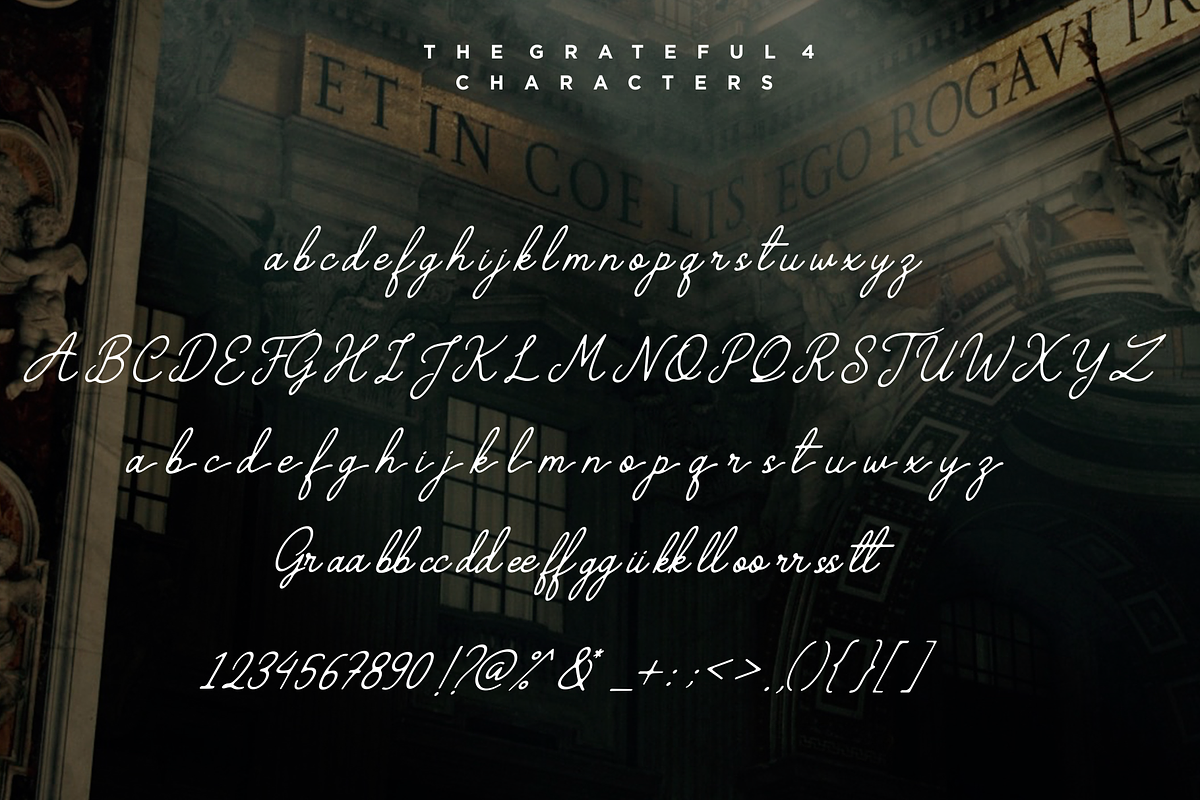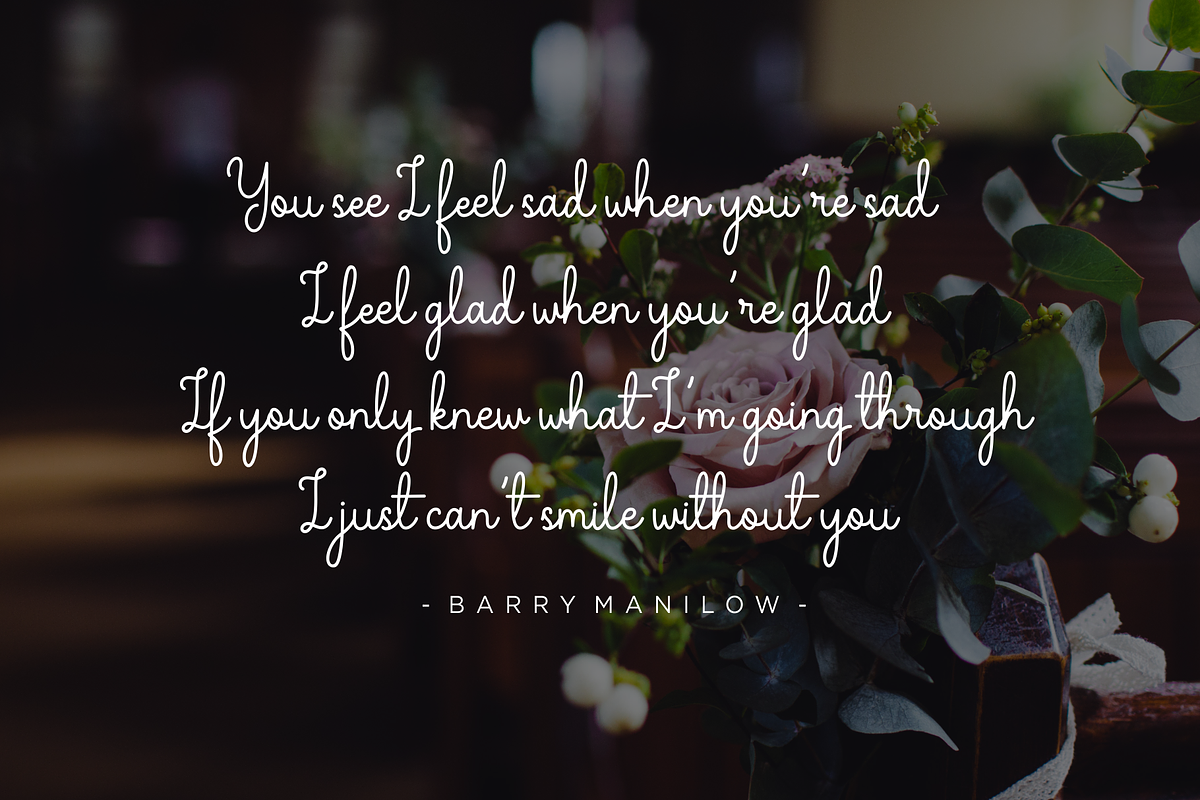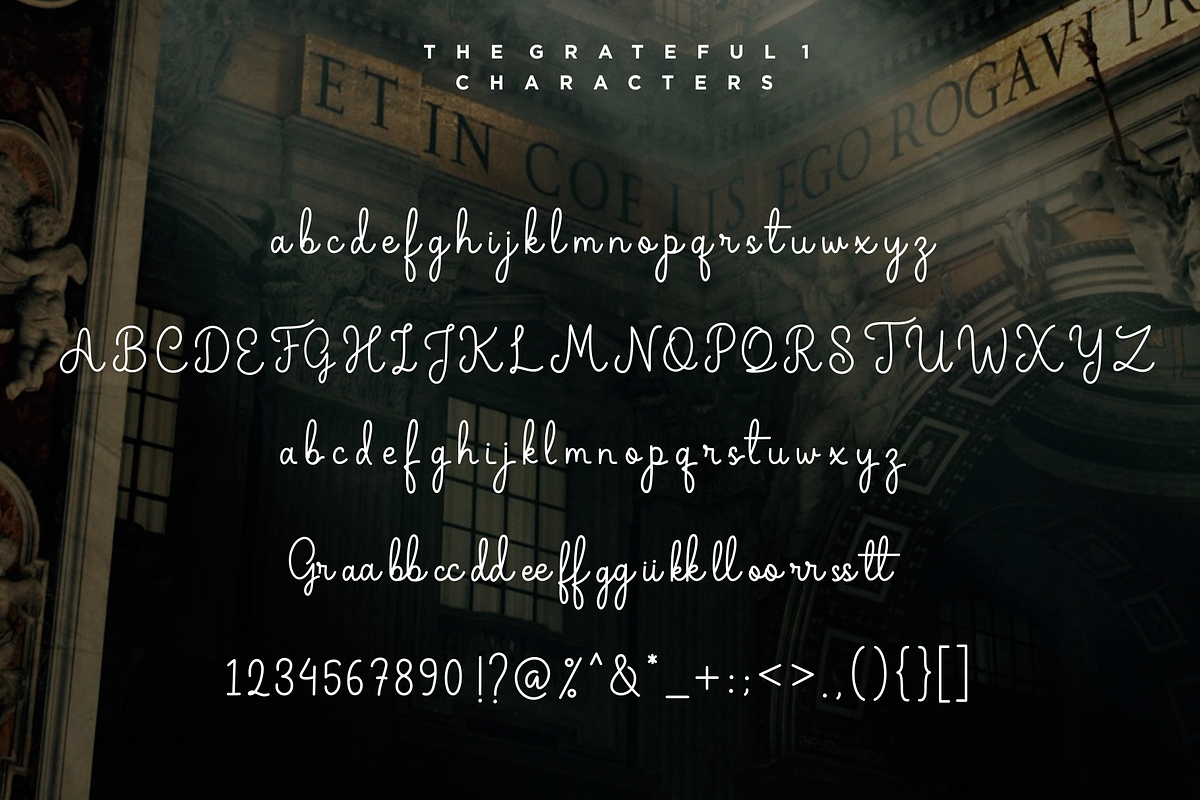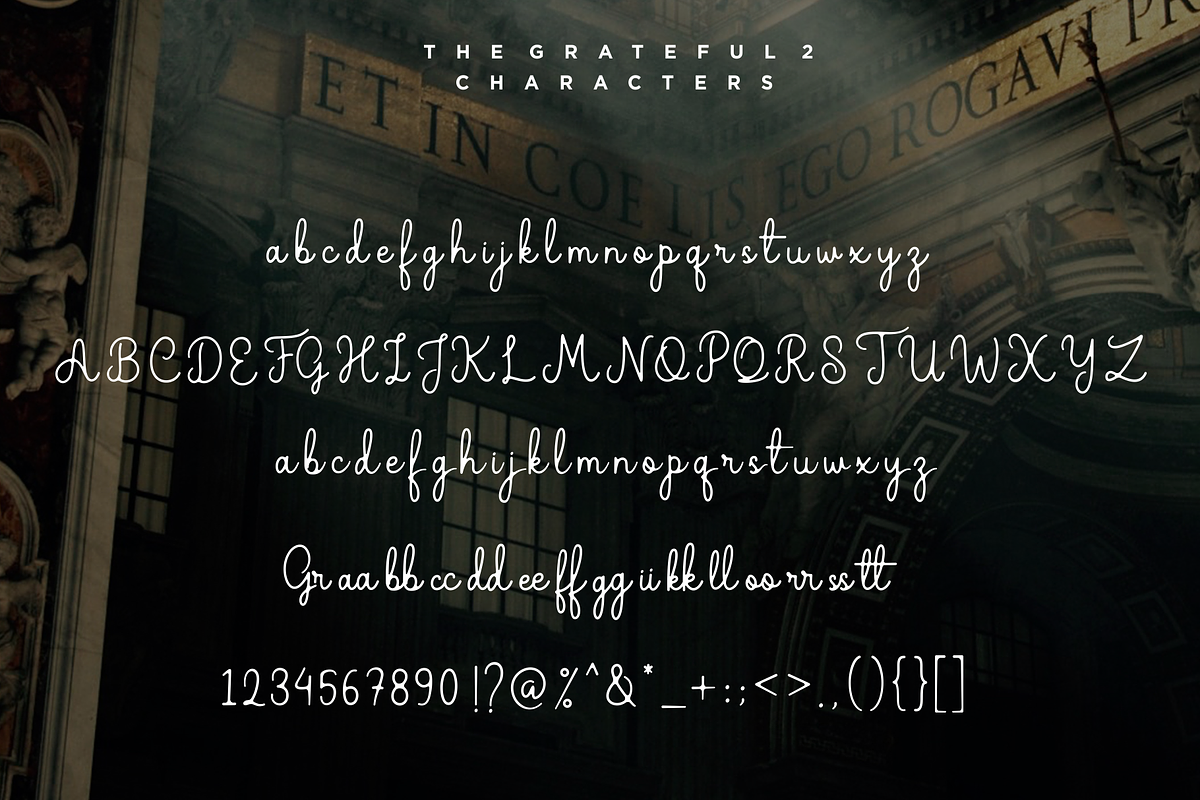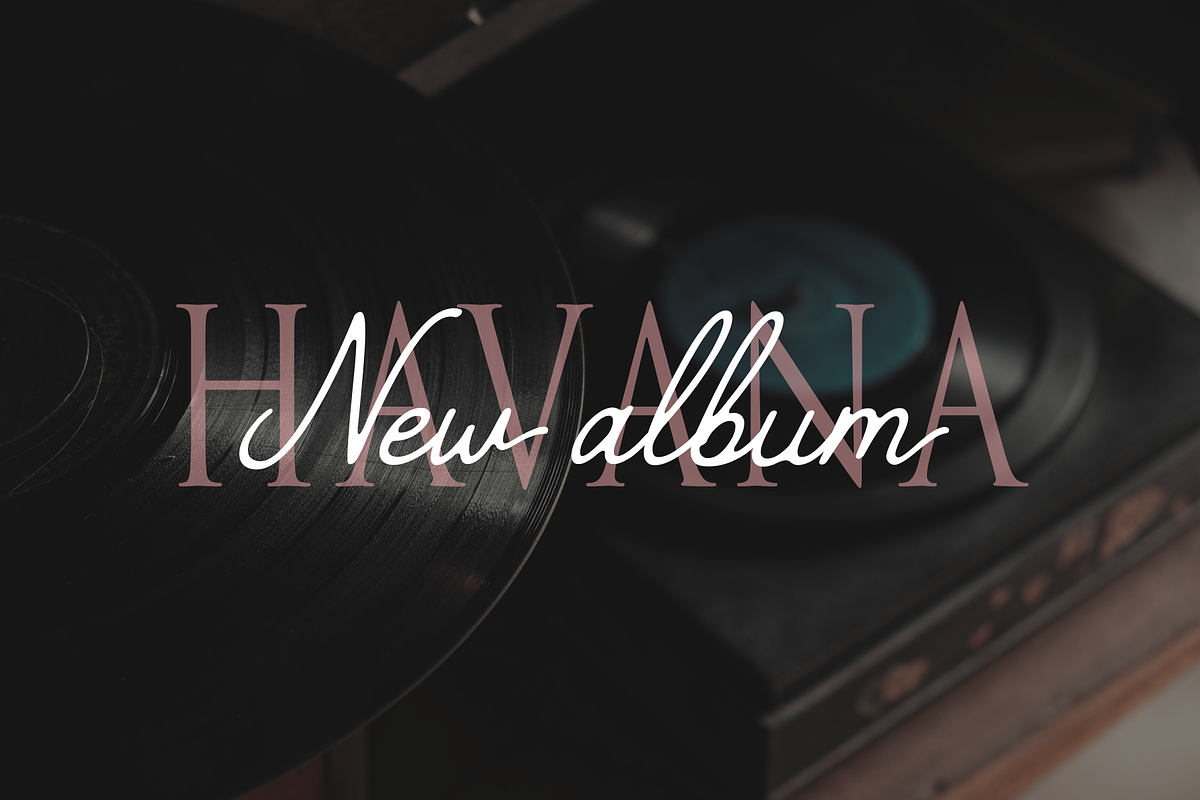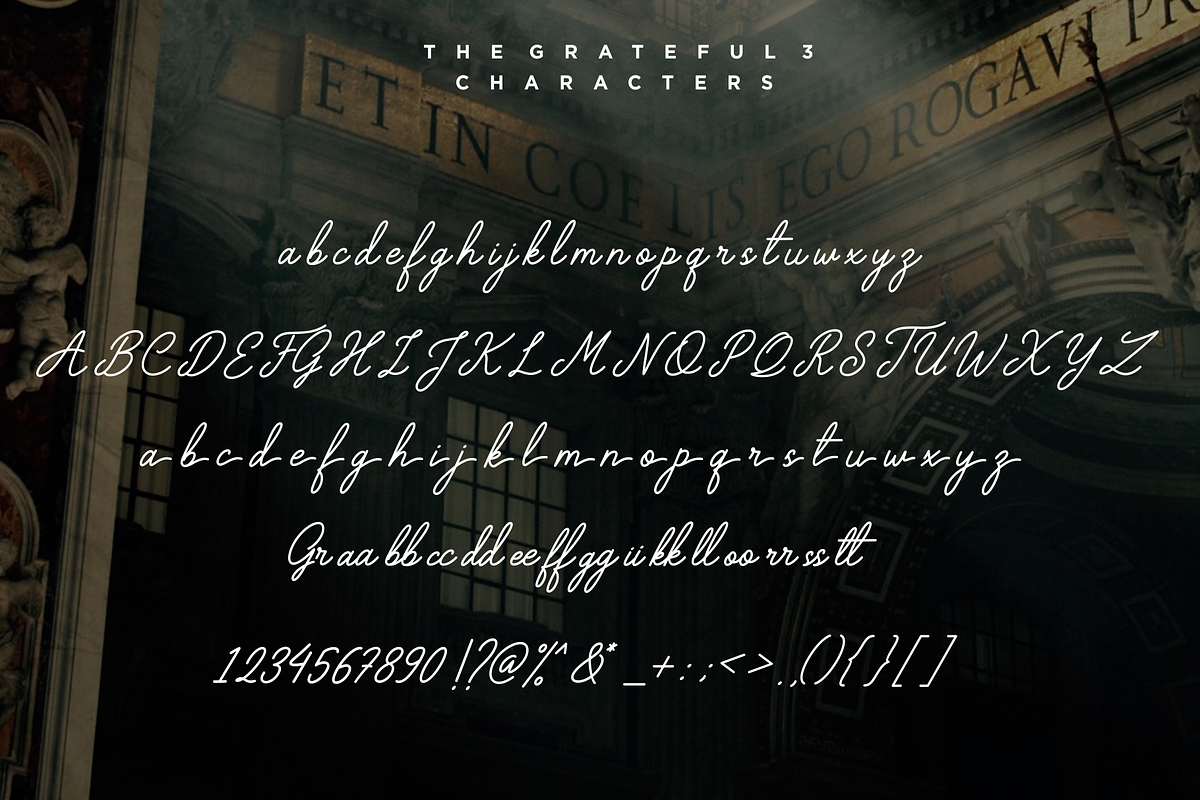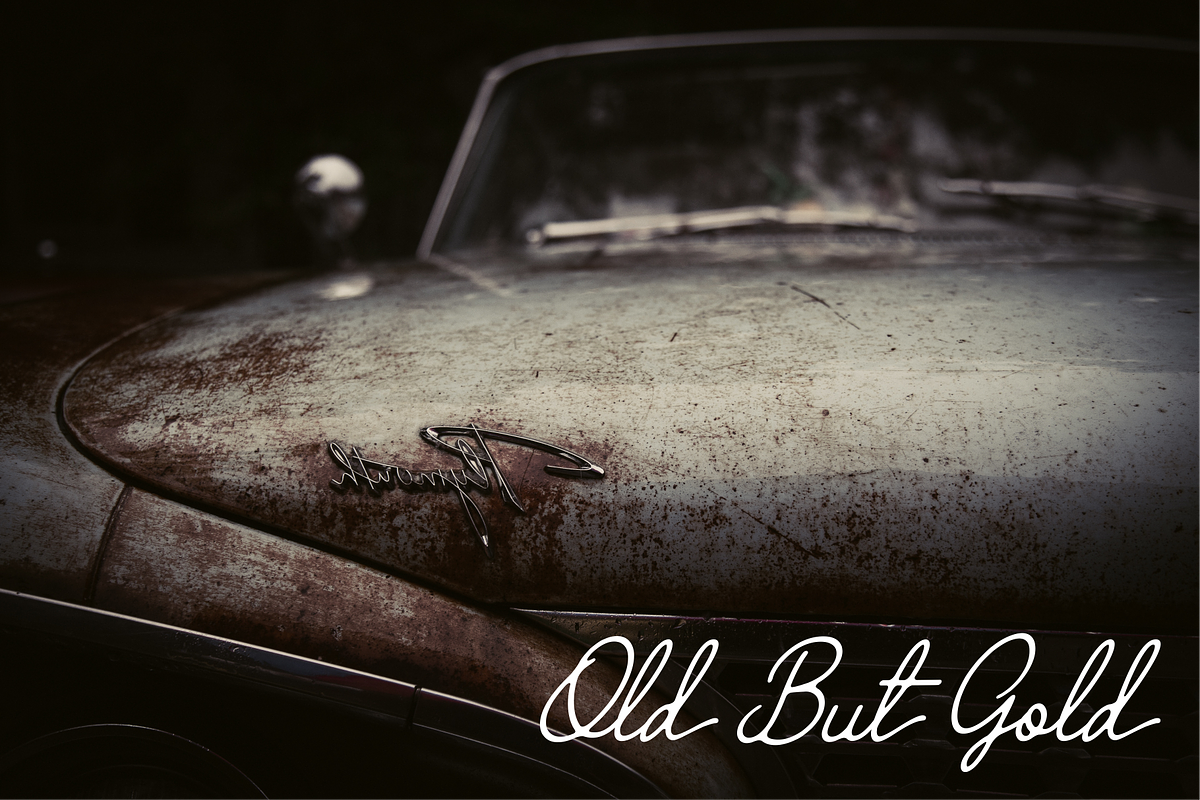
The Grateful Script
The Grateful is a classic handwritten font, comes with 4 versions that giving you a handwritten and signature feel. This monoline, neat font is a great way to add a hip appeal to your logotype and display designs without compromising on giving your work a sleek look.
- More than 240 glyphs
- Ligature and alternates
- Include Multilingual support